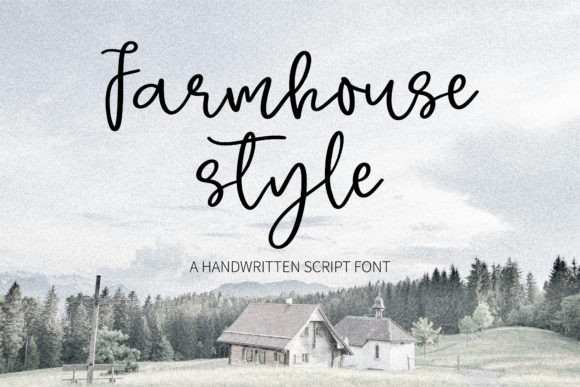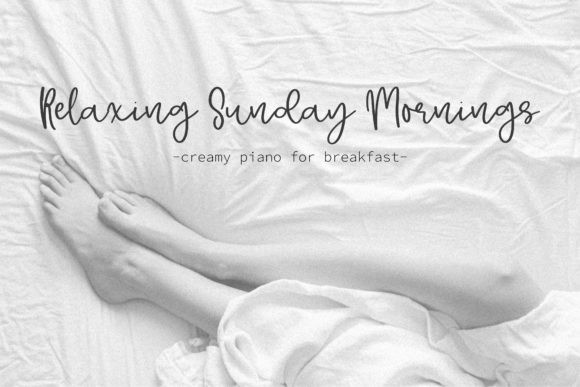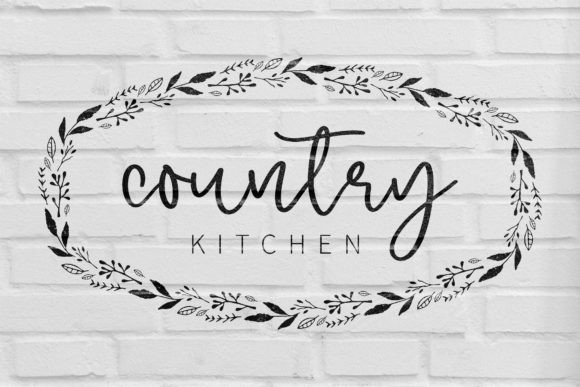
Farmhouse Style Font
Farmhouse style is a sweet and flowing script handwritten font. Fall in love with its incredibly versatile style and use it to create gorgeous wedding invitations, beautiful stationary art, eye-catching social media posts, and much more!